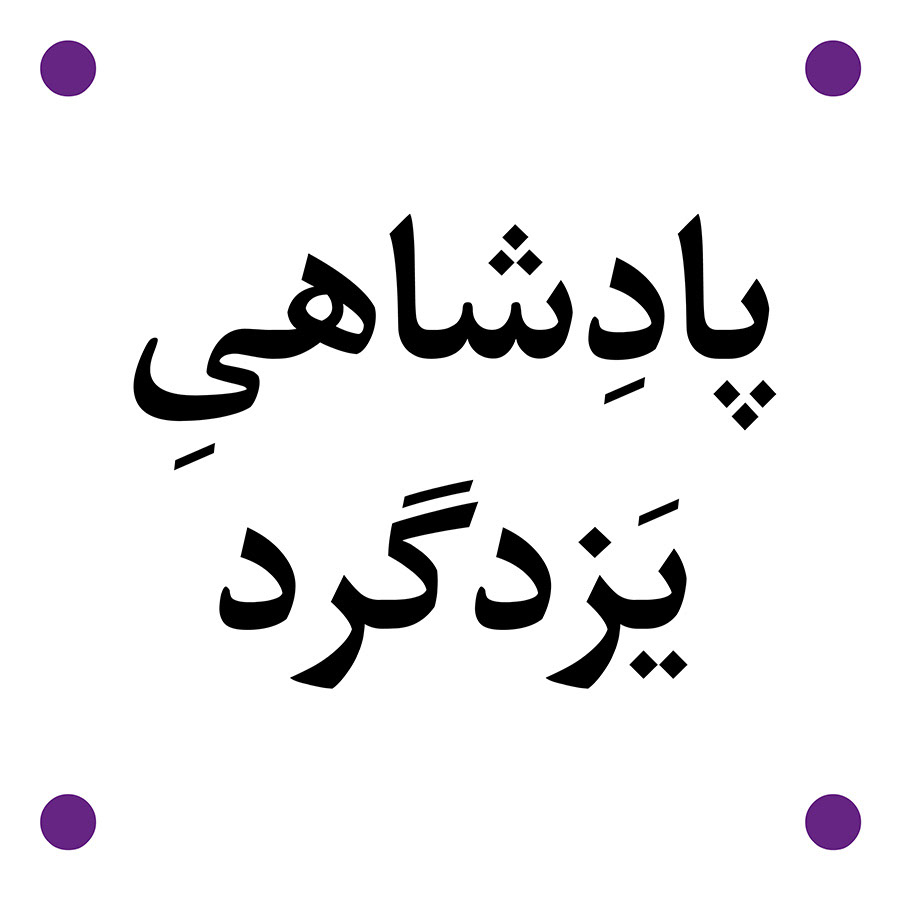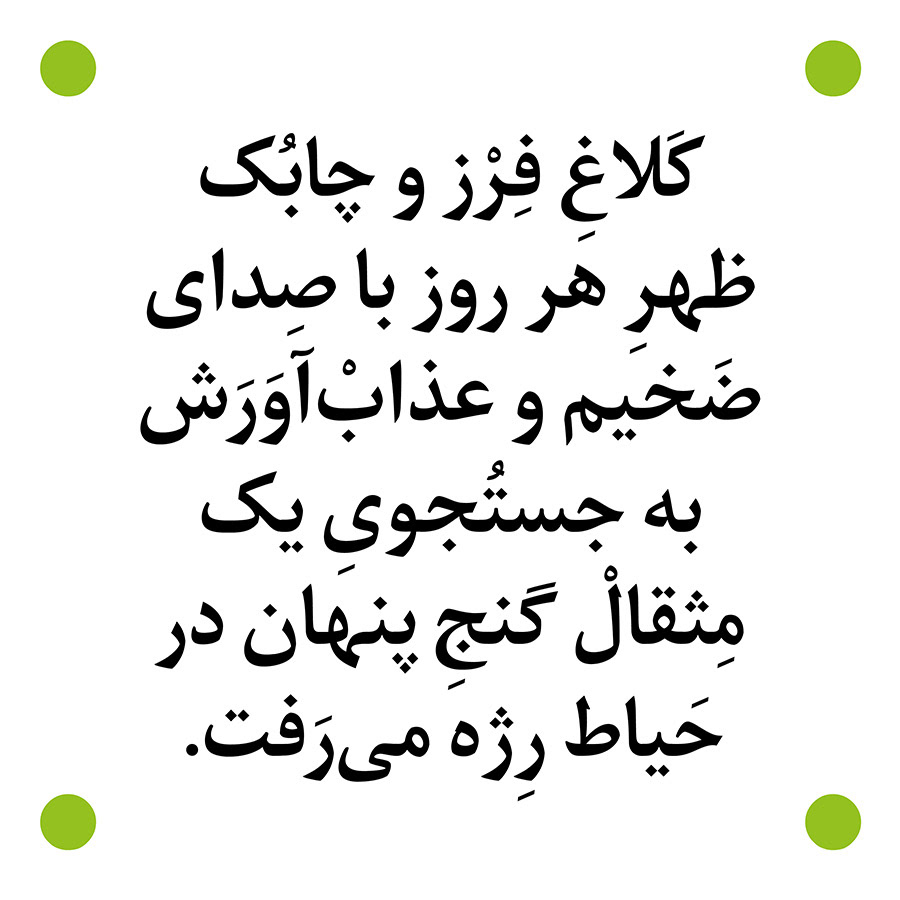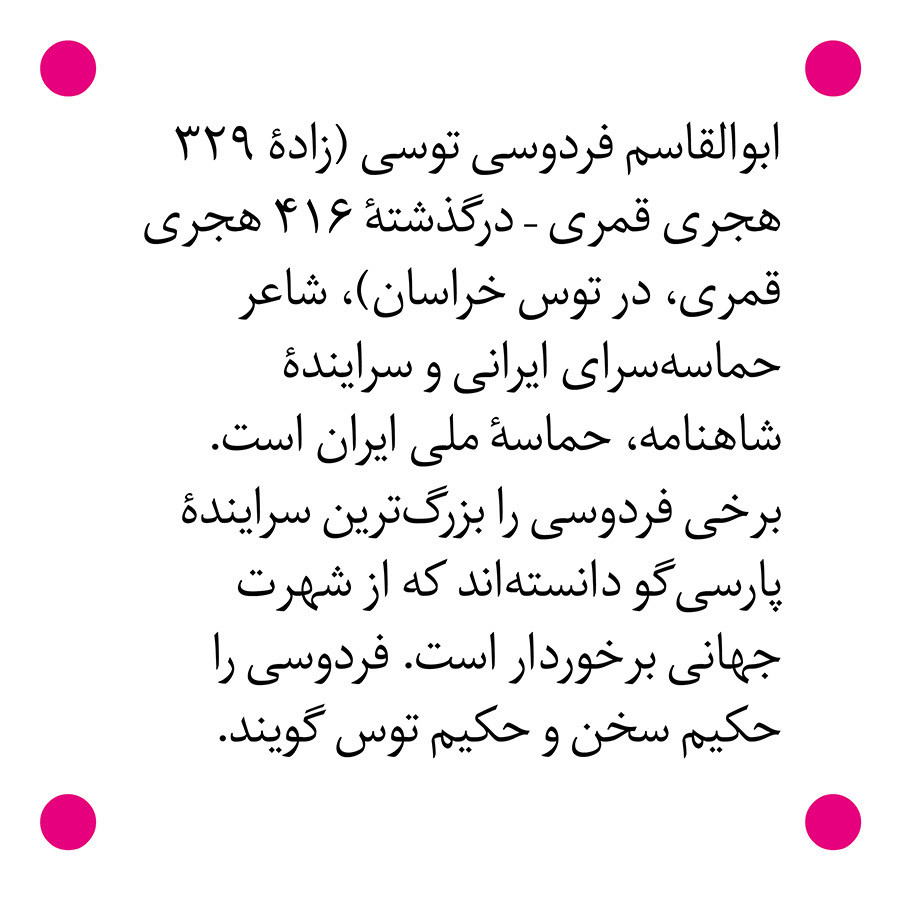
And finally they're here! Hezareh fonts; the most beautiful, legible and readable Si47ash fonts ever released! A text and headline font in 2 weights 🤩
Hezareh means Millennium and I named them that because this year is the 1000th years anniversary of the great Persian poet Ferdowsi passed away.
A fantastic choice for your book designs, small texts, headlines, posters, logotypes and pretty much everything a designer wants from a font!
Hezareh Bold font
Hezareh Bold font (Latin)
Hezareh Bold font (with diacritics)
Hezareh Regular font
Hezareh Regular font (Latin)
Hezareh Regular font
Hezareh Regular font (with diacritics)